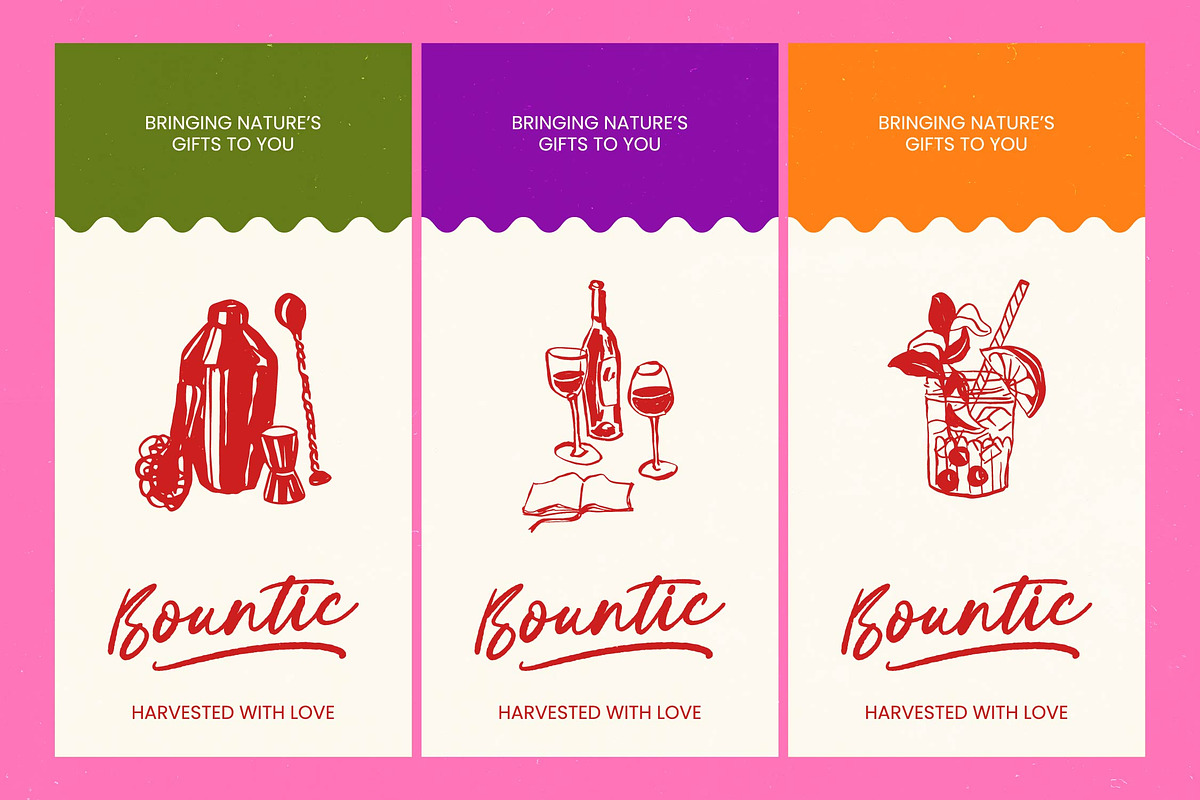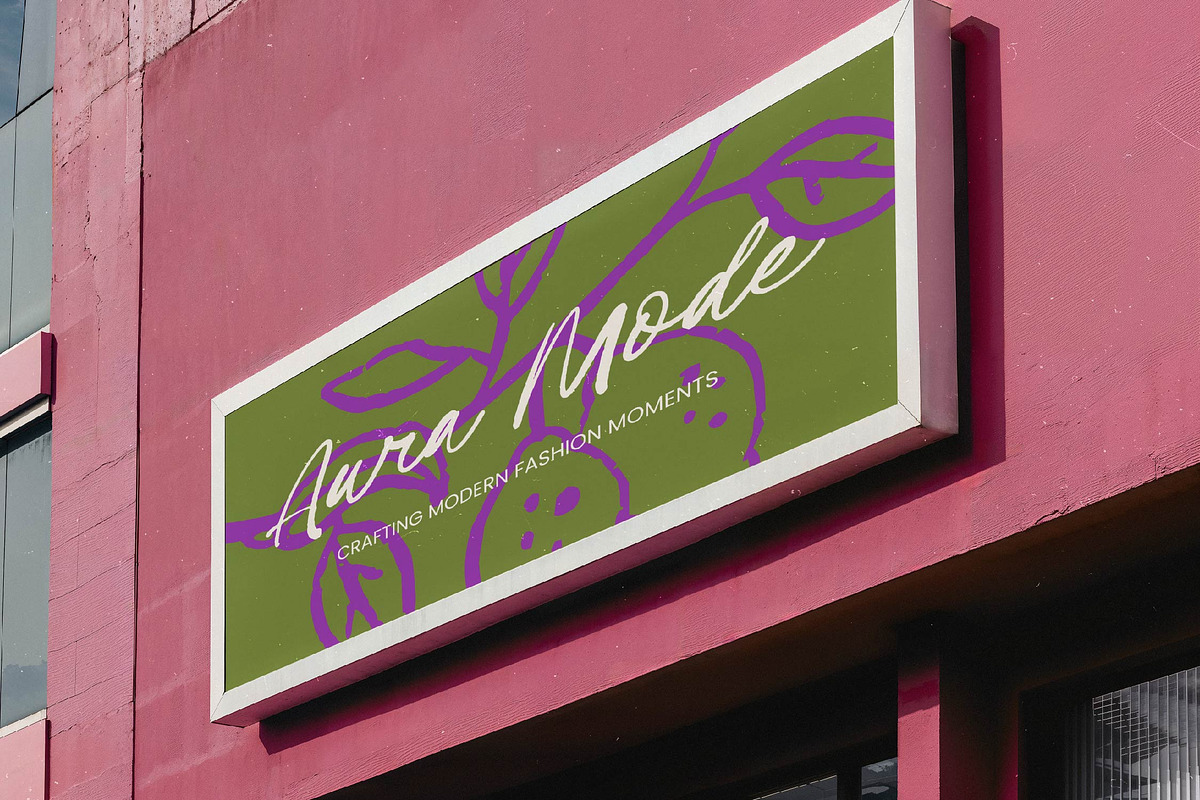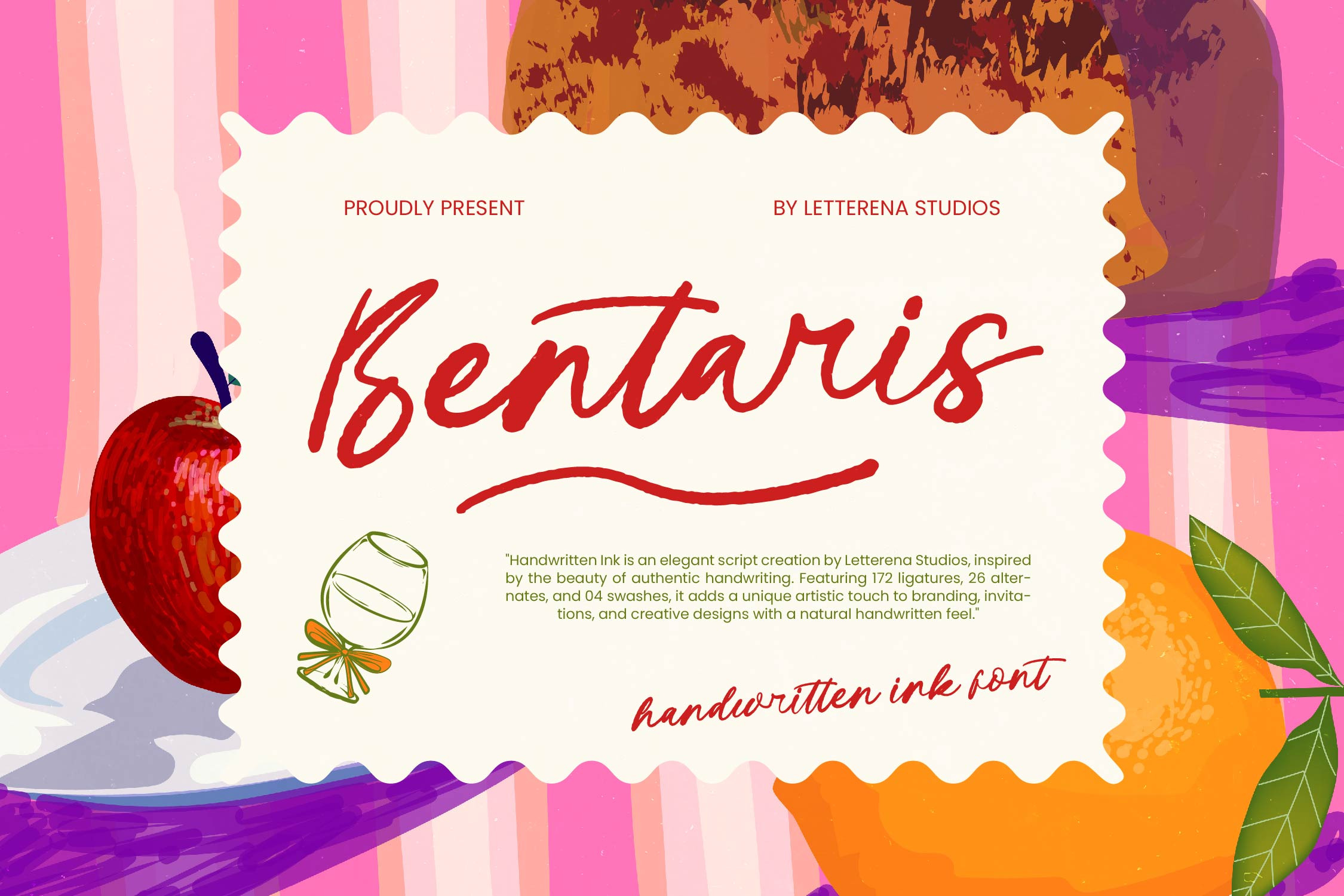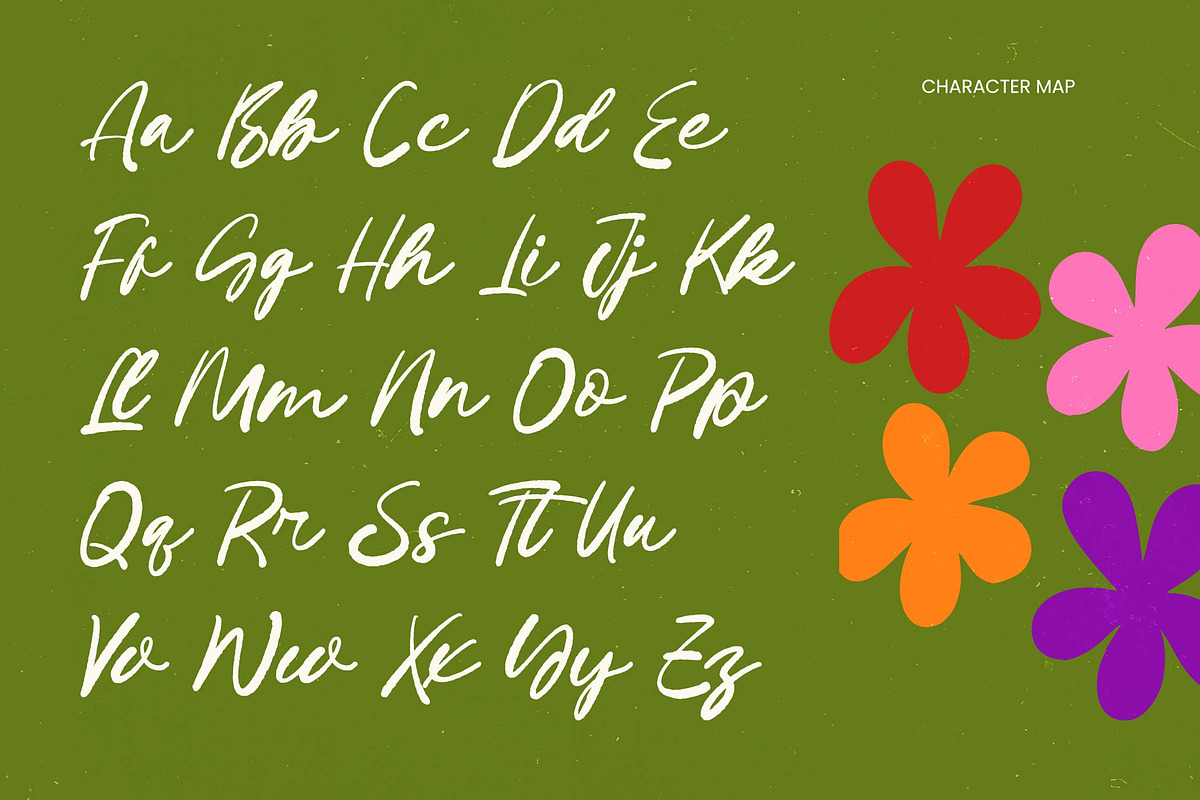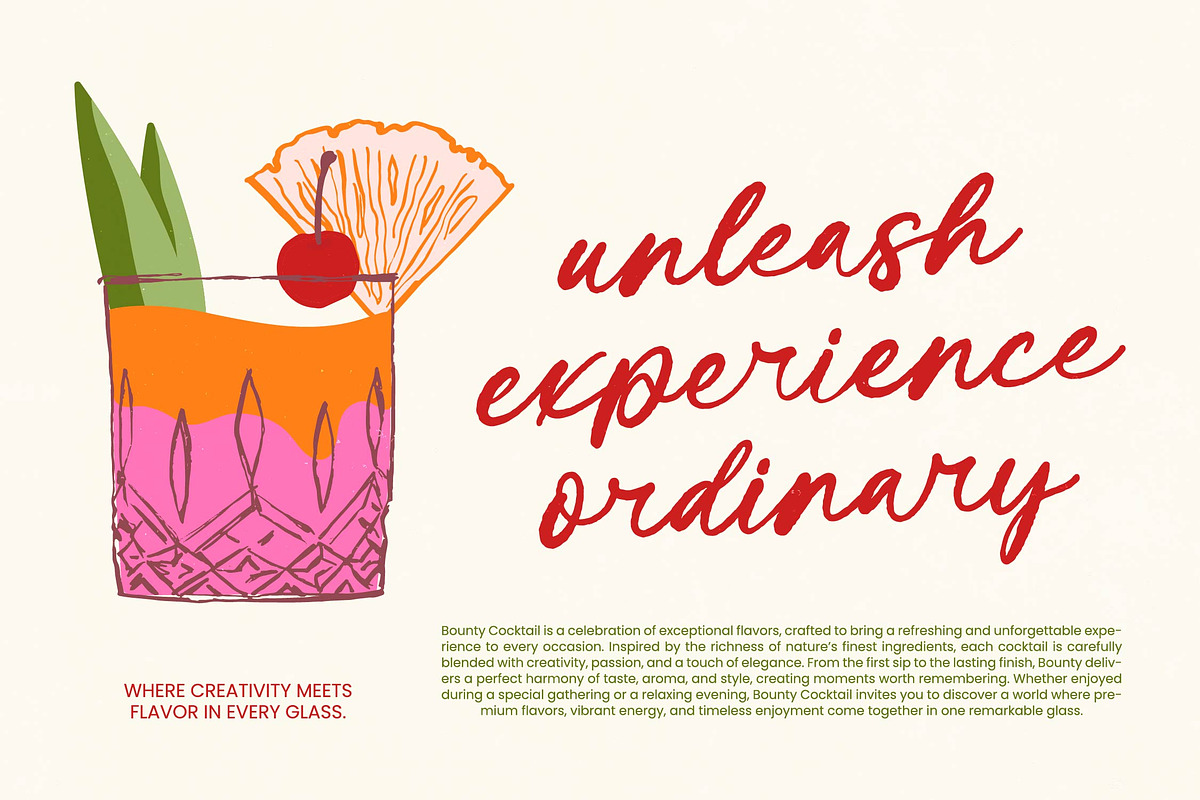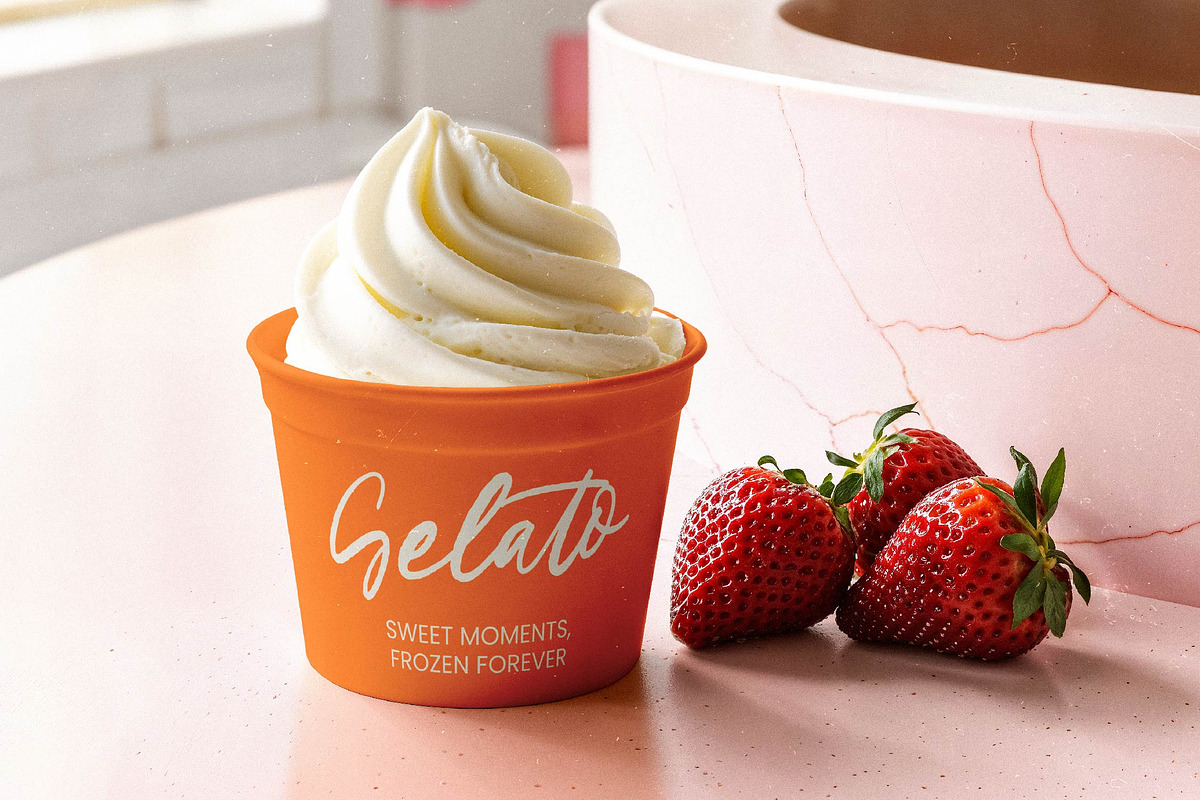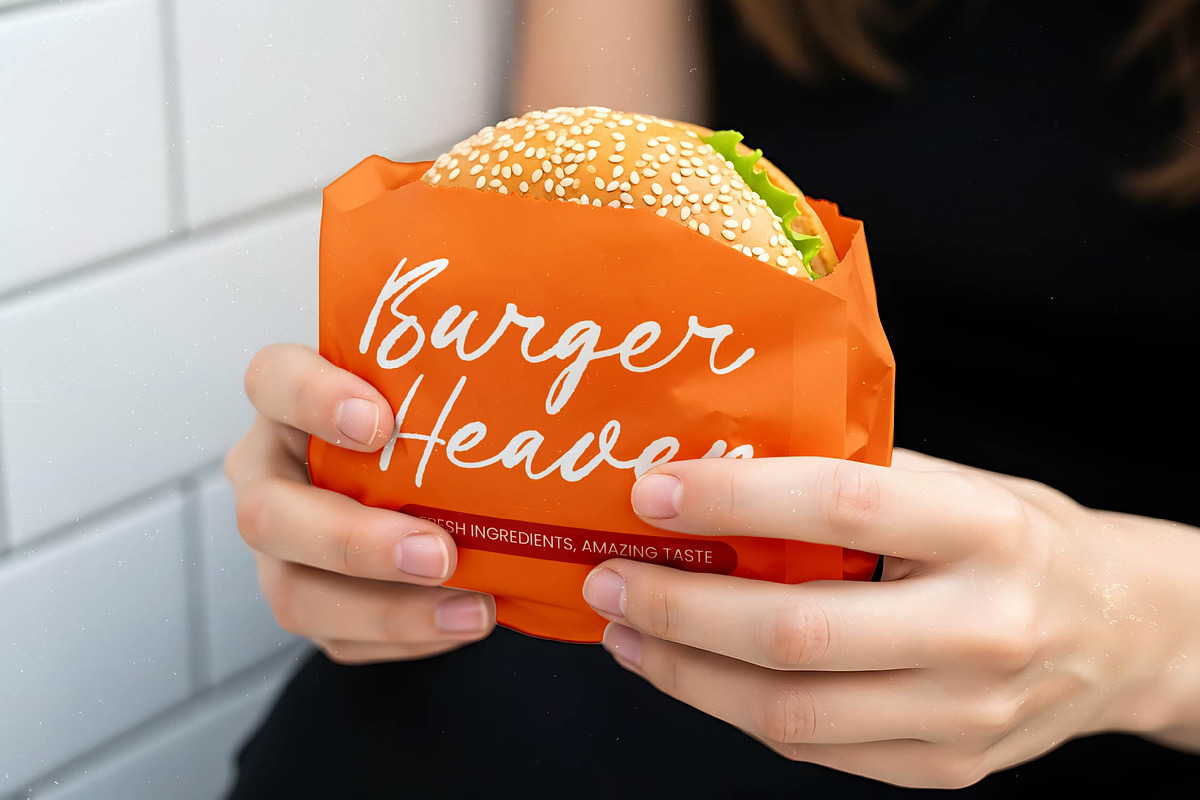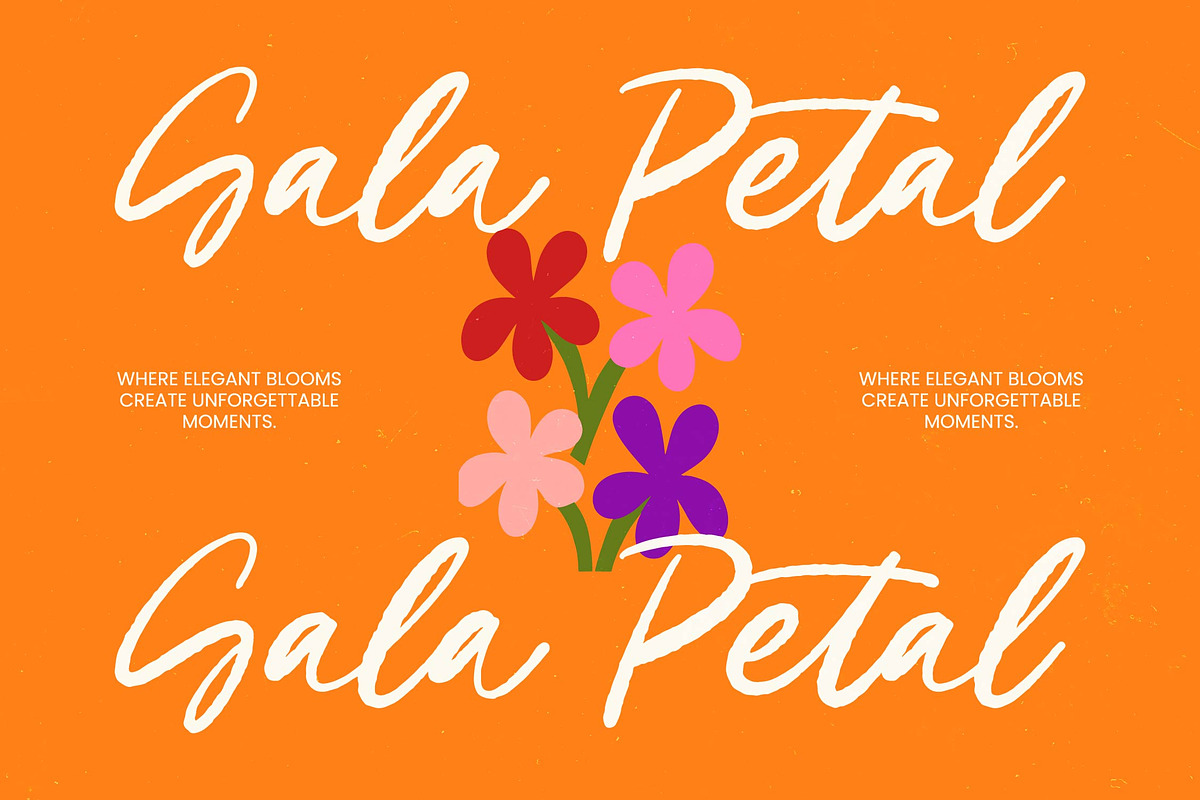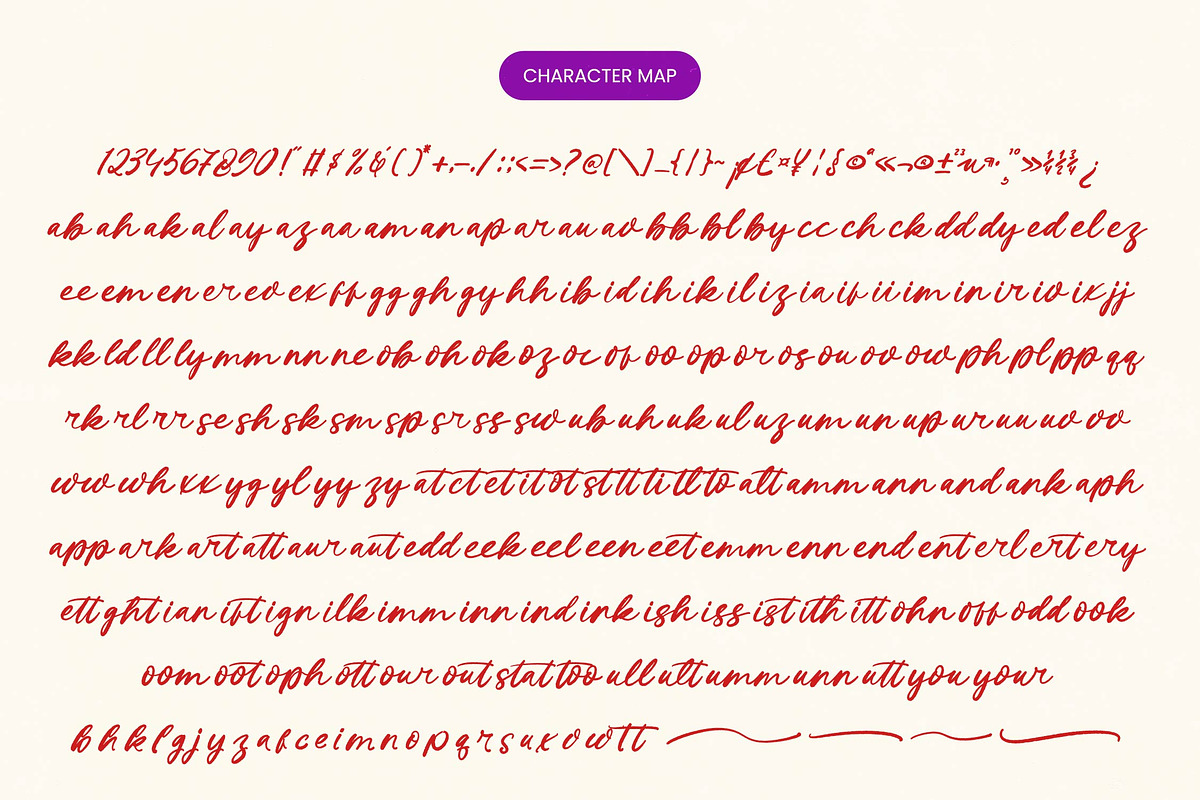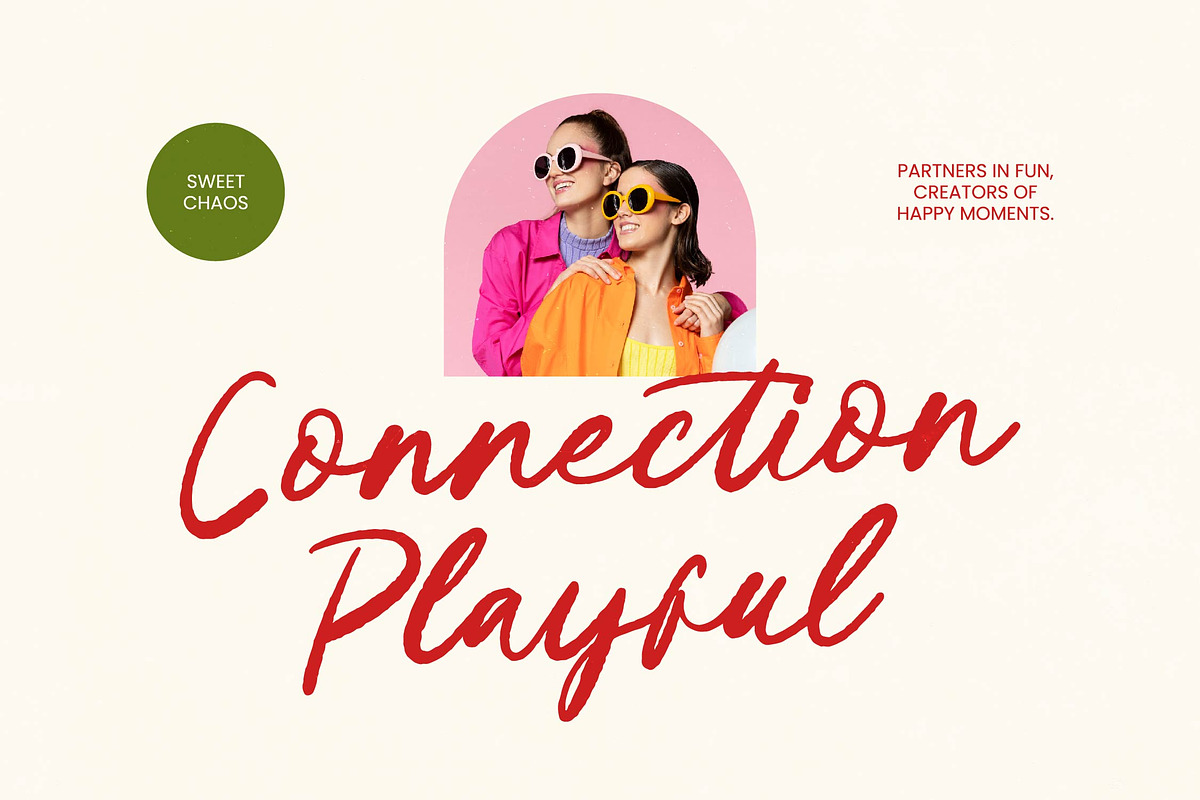
Bentaris Handwritten Ink Font
Bentaris - Handwritten Ink Font , Elevate your creative vision with a typeface that embodies raw elegance and artistic flair. Bentaris - Handwritten Ink Font is a premium script typeface meticulously designed by Letterena Studios to capture the beauty of authentic handwriting. Its fluid, high-contrast strokes and organic textures provide a natural handwritten feel, ensuring your designs stand out with a unique artistic touch and a sense of personalized luxury.
Precision meets spontaneity in this meticulously crafted typographic masterpiece, offering a deep well of creative flexibility. Boasting 172 ligatures, 26 alternates, and stylized swashes, Bentaris - Handwritten Ink Font provides unparalleled visual variety for every character. This robust feature set allows designers to create dynamic compositions and professional-grade lettering that perfectly mimics the nuances of real ink on paper.
Transform your brand identity into a statement of sophistication and high-end elegance through strategic typographic choices. Bentaris - Handwritten Ink Font is perfect for luxury branding, editorial design, boutique packaging, and upscale wedding stationery. It excels in environments where a human-centric aesthetic is required to foster a deep, emotional connection with a refined target audience looking for authenticity.
Unlock limitless creative possibilities across borders with comprehensive character sets designed for the modern global landscape. With its extensive multilingual support, Bentaris - Handwritten Ink Font adapts seamlessly across global markets, making it incredibly versatile for international projects. Whether for digital advertising or high-end print, this font remains a top-tier choice for contemporary design professionals seeking a sophisticated edge.